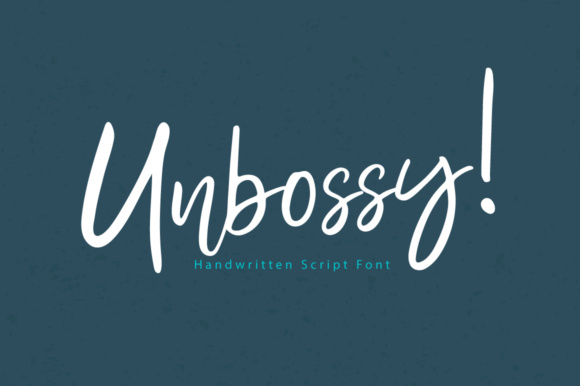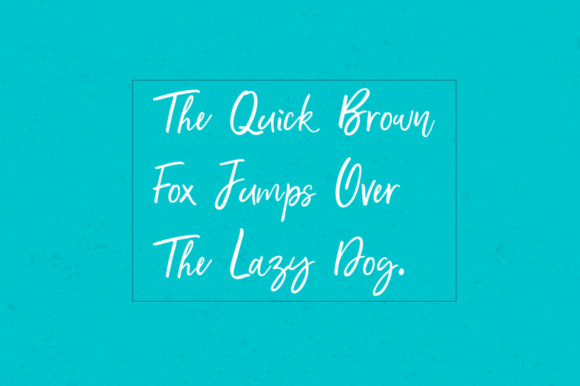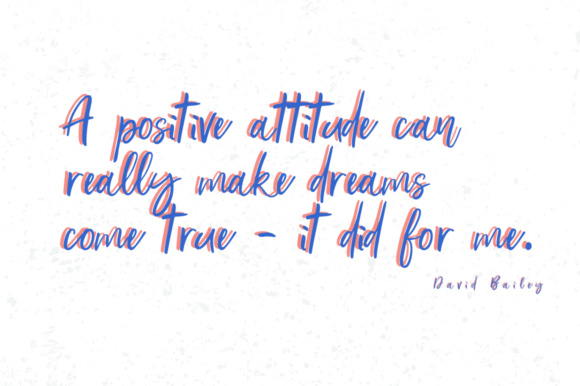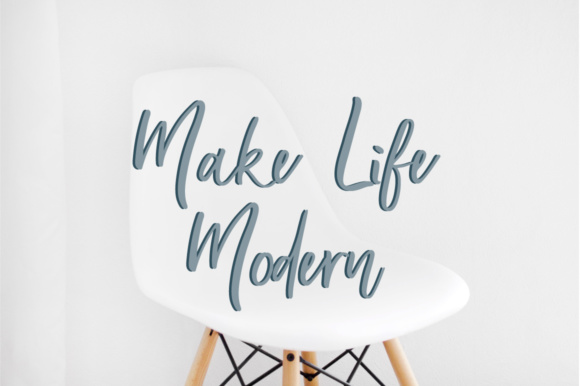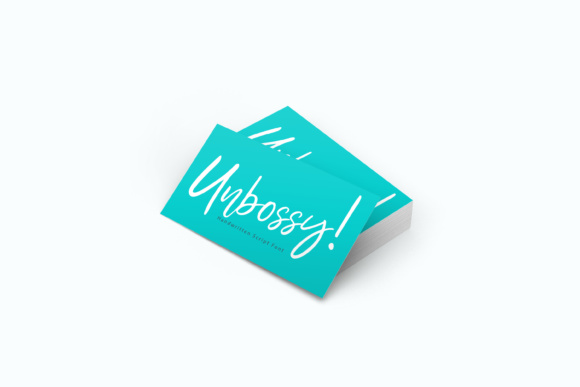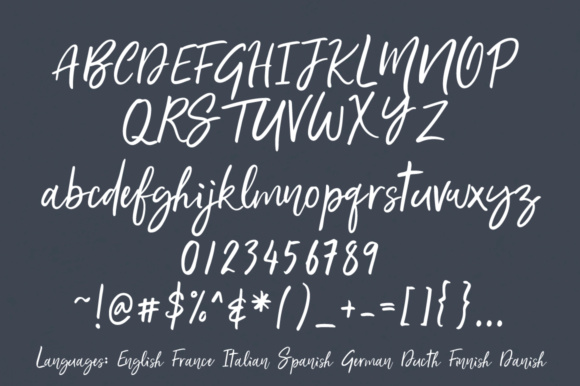
Unbossy Font
About Unbossy Font
Unbossy is a handwritten script, that is perfect for fun designs such as wedding invites, blog design and more.
Works great for personal designs and small businesses, and is overall a font that will leave a lasting impression.